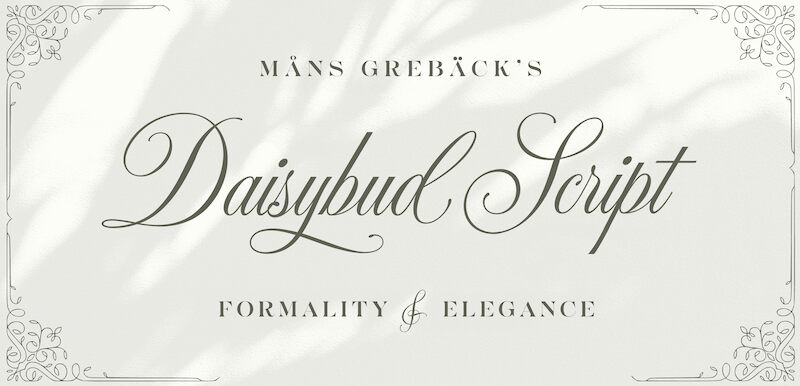
Daisybud Script font
Daisybud Script
Daisybud Script is a modern interpretation of an elegant and flourishing typeface.
The font has a fine, airy feel and features long, flowy connections that make it ideal for delicate headlines, intricate logotypes, or custom invitation cards for beautiful events.
The calm and soft vibe of the swirly lines adds to its sophistication.